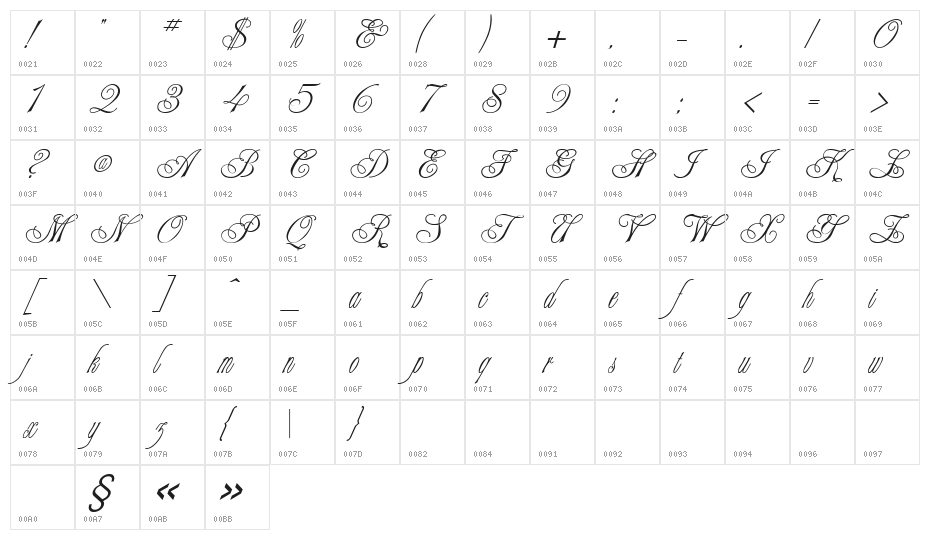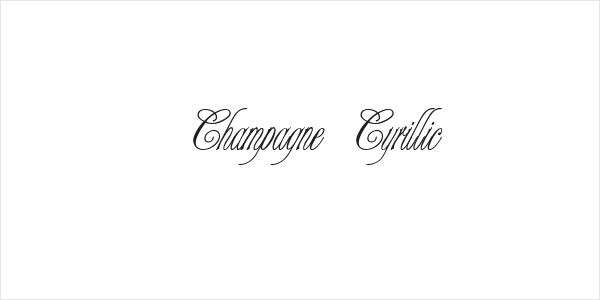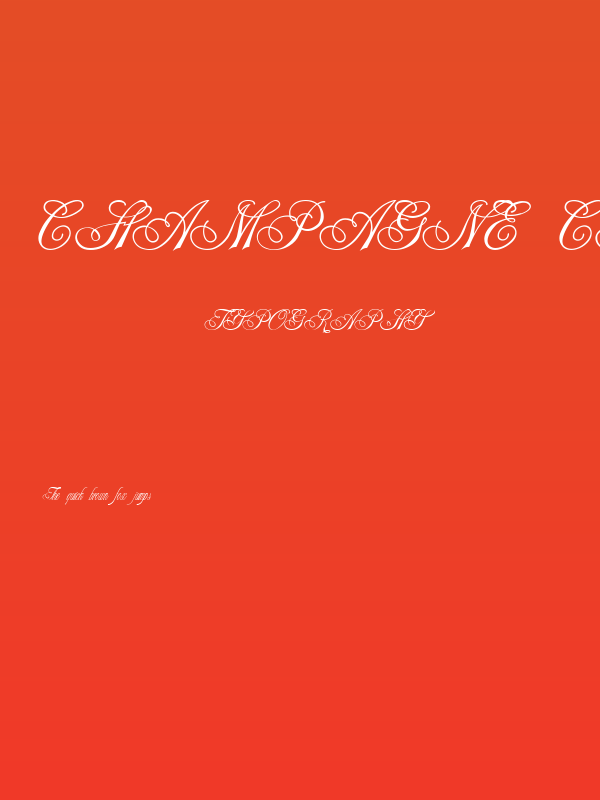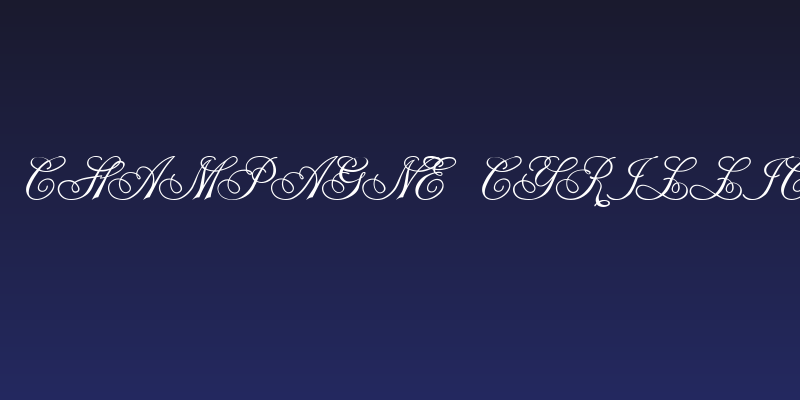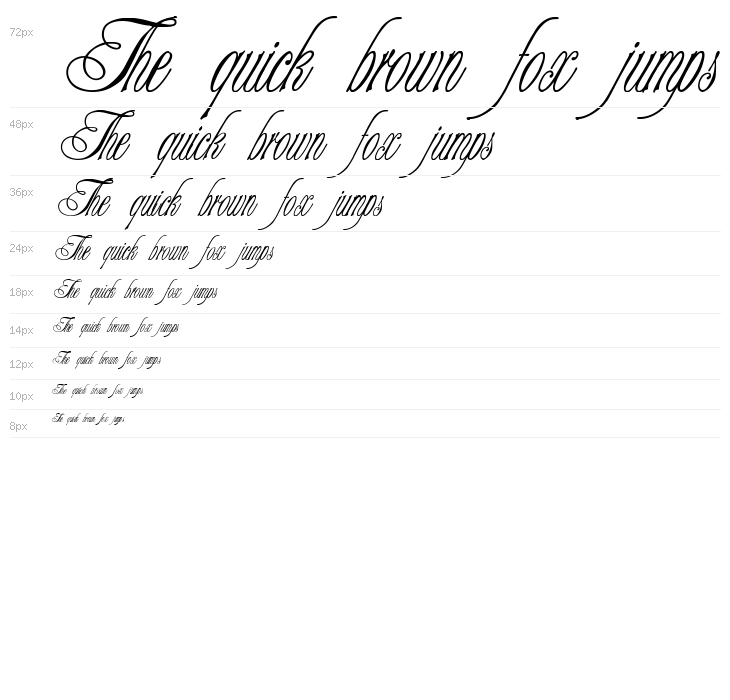
Champagne Cyrillic Font
Champagne Cyrillic Description
This elegant script font features a sophisticated and flowing design, characterized by its ornate and decorative letterforms. The uppercase letters are particularly elaborate, with intricate loops and swirls that add a sense of luxury and refinement. The lowercase letters maintain a consistent style, offering a smooth and connected appearance that enhances readability while preserving the font's decorative nature. Numbers and special characters are designed with the same attention to detail, ensuring a cohesive look across all elements. This font's high contrast in stroke thickness further emphasizes its elegant and stylish nature, making it ideal for projects that require a touch of class and sophistication.
| Overall Style | Elegant, Decorative |